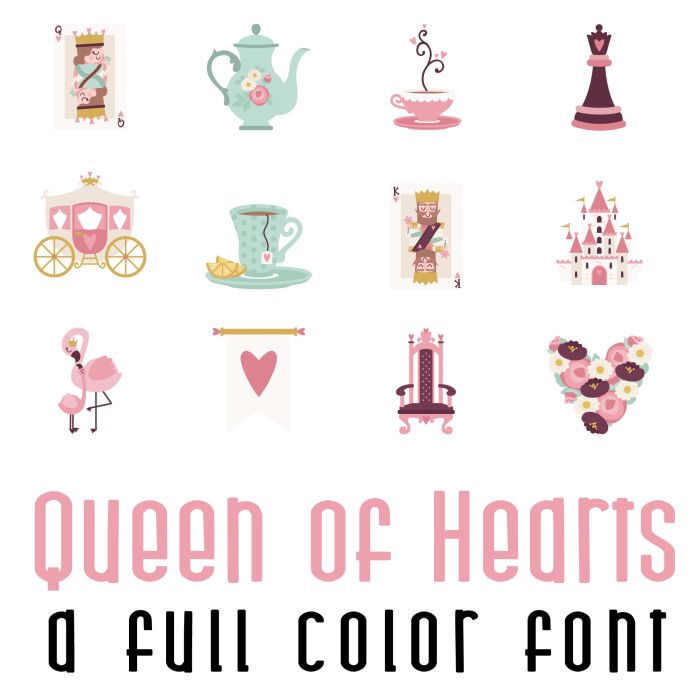
This fun full color font features 36 adorable queens and Mother's Day friendly imagery! Perfect for cards, crafts, parties, gifts, decor, planner stickers, classrooms, scrapbook pages, Mother's Day and more!